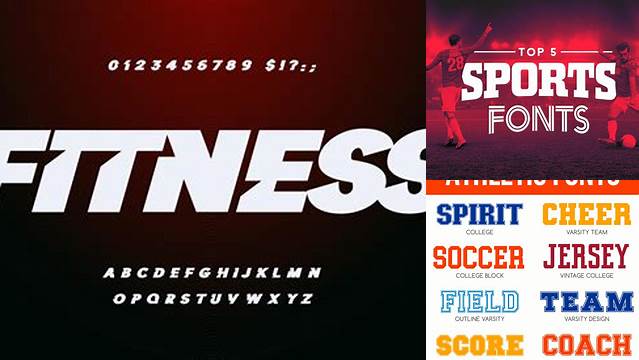
Top Fonts For Dynamic Sports Designs
Let's dive into the world of sports design, where choosing the right font can make all the difference. A great font can amplify the energy, passion, and spirit of the game, connecting with fans and athletes alike. But with so many options, how do you pick the perfect one? Don't worry, guys! This guide will walk you through the top fonts for sports designs, covering everything from athletic logos to dynamic posters.
1. The Importance of Typography in Sports Branding
Typography is more than just picking pretty letters; it's a crucial element in building a strong and recognizable sports brand. Think about iconic sports brands like Nike or Adidas. Their logos and associated fonts are instantly recognizable and evoke specific feelings. The right typography helps convey the team's personality, history, and values. It's about creating a visual language that resonates with fans and sets the team apart from the competition. When creating sports branding, remember to think about what sets this brand apart.
Think of your font as the voice of your brand. A bold, strong font can represent power and dominance, while a sleek, modern font might convey agility and innovation. The font choice must align with the overall brand identity, ensuring consistency across all platforms, from jerseys and merchandise to websites and social media. Typography also impacts readability, especially on fast-moving visuals like game-day graphics. So, choosing a font that is both stylish and legible is essential for effective communication and brand recognition.
2. Best Sans-Serif Fonts for Sports Logos
When it comes to sports logos, sans-serif fonts are often the go-to choice. Why? Because they offer a clean, modern, and versatile look that works well in various applications. One popular option is Bebas Neue, known for its tall, condensed letters that exude strength and power. Its clean lines and geometric shapes make it highly legible and impactful, perfect for conveying a sense of authority. Another excellent choice is Montserrat, a versatile font with a contemporary feel. Its clean, balanced letterforms make it highly readable, and it comes in various weights, offering flexibility in design. You can make your logo or the font itself stand out!
Consider Roboto, a widely used sans-serif font that strikes a balance between modern and classic design. Its open forms and friendly appearance make it approachable and versatile, suitable for a wide range of sports-related applications. For a more futuristic and tech-inspired look, Raleway is an excellent option. Its sleek lines and sharp angles give it a modern edge, perfect for teams or brands that want to convey innovation and speed. Sans-serif fonts provide a solid foundation for sports logos, offering a clean, versatile, and impactful look that can resonate with fans and athletes alike.
3. Top Serif Fonts for Sports Design
While serif fonts might not be as common as sans-serif fonts in sports logos, they can add a touch of classic elegance and sophistication to your designs. Playfair Display is a beautiful serif font with high contrast and delicate serifs, making it perfect for adding a touch of luxury to sports-related designs. It's great for creating a sense of tradition and heritage. Another excellent choice is Lora, a well-balanced serif font with a contemporary feel. Its slightly rounded terminals and elegant curves make it highly readable and approachable, perfect for conveying a sense of warmth and friendliness.
Merriweather is a robust serif font designed for on-screen reading, making it a great option for sports websites and digital publications. Its tall x-height and sturdy serifs ensure excellent legibility, even at small sizes. For a more classic and timeless look, consider Georgia. Its clean, well-defined letterforms make it highly readable and versatile, suitable for a wide range of sports-related applications. Although less common, serif fonts can bring a unique and sophisticated touch to sports designs, adding depth, character, and a sense of tradition.
4. Best Script Fonts for Sports-Themed Graphics
Script fonts can add a touch of personality and flair to your sports-themed graphics. But, it's important to use them sparingly and strategically. Brush Script MT is a classic brush script font that exudes energy and excitement. Its bold, dynamic strokes make it perfect for conveying a sense of movement and speed. Pacifico is a fun and friendly script font that adds a touch of playfulness to sports designs. Its rounded letterforms and casual style make it approachable and inviting, perfect for connecting with younger audiences.
Consider Lobster, a bold and eye-catching script font that demands attention. Its distinctive letterforms and vintage-inspired style make it perfect for creating a retro or nostalgic feel. For a more elegant and refined look, Great Vibes is an excellent choice. Its graceful curves and delicate strokes add a touch of sophistication to sports-related designs. While script fonts should be used judiciously, they can be incredibly effective in adding personality, flair, and a touch of uniqueness to your sports-themed graphics.
5. Monospace Fonts in Sports Design
Monospace fonts, where each character occupies the same amount of horizontal space, aren't typically the first choice for sports designs. However, they can be used creatively to achieve a unique and technical look. Courier New is a classic monospace font that evokes a sense of retro technology and coding. It can be used to create a vintage or industrial feel in sports-related designs. Roboto Mono is a modern monospace font that combines the clean lines of Roboto with the uniformity of a monospace typeface. Its balanced letterforms and contemporary style make it versatile and readable, even in longer texts.
Source Code Pro is a popular monospace font designed for coding environments, but it can also be used in sports designs to convey a sense of precision and technical expertise. Its clear and legible letterforms make it suitable for displaying data and statistics. Consider Fira Mono, a monospace font designed for Mozilla Firefox. Its open forms and friendly appearance make it approachable and readable, even at small sizes. While monospace fonts may not be as widely used as other font styles, they can bring a unique and technical edge to sports designs, especially when used creatively and sparingly.
6. Retro Fonts for Vintage Sports Aesthetics
Retro fonts are perfect for capturing the nostalgia and charm of vintage sports aesthetics. These fonts often feature bold, chunky letterforms, unique serifs, and a distinct sense of character that evokes a bygone era. Cooper Black is a classic retro font known for its rounded, heavy letterforms and playful appearance. It's perfect for creating a fun and nostalgic feel, reminiscent of old-school sports advertisements and posters. ITC Bauhaus is another excellent choice, with its geometric shapes and Art Deco influences. Its clean lines and stylized letterforms add a touch of sophistication and elegance to vintage-inspired designs.
Rockwell is a sturdy slab-serif font that exudes strength and confidence. Its bold letterforms and square serifs make it ideal for creating impactful headlines and logos with a retro feel. Consider Brush Script, a dynamic and energetic script font that captures the spirit of mid-century advertising. Its flowing strokes and hand-drawn appearance add a touch of personality and authenticity to vintage sports designs. Retro fonts can effectively transport viewers back in time, adding character, charm, and a sense of history to your sports-related projects.
7. Futuristic Fonts for Modern Sports Brands
For modern sports brands aiming to convey innovation, speed, and cutting-edge technology, futuristic fonts are the way to go. These fonts often feature sleek lines, geometric shapes, and a sense of forward motion that reflects the dynamic nature of sports. Nexa Rust Sans Black is a bold and impactful font with a slightly distressed texture, giving it a modern and edgy feel. Its strong letterforms and contemporary style make it perfect for creating attention-grabbing headlines and logos. Orbitron is another excellent choice, with its clean, geometric shapes and futuristic appearance. Its rounded terminals and balanced letterforms make it highly readable and versatile.
Consider Exo, a sleek and modern sans-serif font with a slightly condensed form. Its dynamic letterforms and futuristic aesthetic make it ideal for conveying speed and innovation. For a more minimalist and understated look, Rajdhani is a great option. Its clean lines and simple shapes give it a modern and sophisticated feel, perfect for conveying a sense of elegance and precision. Futuristic fonts can effectively communicate a brand's commitment to innovation and technology, helping to create a modern and dynamic image for sports teams and organizations.
8. Best Fonts for Sports Jerseys
Choosing the right font for sports jerseys is crucial for both aesthetics and legibility. The font must be easily readable from a distance, durable enough to withstand wear and tear, and consistent with the team's brand identity. Block fonts are a popular choice for jerseys due to their clean lines and excellent legibility. Arial Black is a classic block font that is widely used in sports apparel. Its bold letterforms and simple design make it highly readable and versatile. Impact is another excellent option, with its condensed form and strong presence. Its bold letterforms and narrow width make it ideal for fitting longer names and numbers on jerseys.
Consider Eurostile, a geometric sans-serif font that exudes a sense of speed and technology. Its clean lines and modern appearance make it perfect for conveying a contemporary look. For a more traditional and athletic feel, Collegiate is a great choice. Its bold letterforms and classic design evoke the spirit of college sports. When selecting fonts for sports jerseys, prioritize legibility, durability, and consistency with the team's brand. This will ensure that the jerseys look great and are easy to read on the field.
9. Fonts for Sports Posters
Sports posters need fonts that grab attention and convey the excitement of the game. Bold, dynamic fonts are often the best choice for creating impactful designs. Bangers is a high-energy comic-style font that is perfect for creating a sense of action and excitement. Its bold letterforms and playful design make it ideal for posters targeting younger audiences. Komika Axis is another great option, with its clean lines and geometric shapes. Its modern appearance and strong presence make it suitable for conveying a sense of power and dynamism.
Consider League Gothic, a condensed sans-serif font that is perfect for headlines and titles. Its tall, narrow letterforms allow you to fit more text on the poster without sacrificing legibility. For a more vintage-inspired look, Bebas Neue is an excellent choice. Its clean lines and tall letterforms give it a classic and timeless feel. When designing sports posters, choose fonts that are bold, dynamic, and eye-catching. This will help you create designs that capture the attention of viewers and convey the excitement of the game.
10. Fonts for Sports Websites
Sports websites require fonts that are both readable and visually appealing. The font should be easy on the eyes, even when reading longer articles or browsing through numerous pages. Open Sans is a popular choice for websites due to its clean lines and excellent legibility. Its open letterforms and neutral design make it highly readable on screens of all sizes. Lato is another great option, with its rounded letterforms and friendly appearance. Its warm and inviting design makes it perfect for creating a welcoming and approachable website.
Consider Roboto, a versatile sans-serif font that strikes a balance between modern and classic design. Its open forms and friendly appearance make it approachable and versatile, suitable for a wide range of sports-related applications. For a more minimalist and understated look, Montserrat is a great option. Its clean lines and balanced letterforms make it highly readable and versatile. When choosing fonts for sports websites, prioritize legibility, readability, and a design that complements the overall website aesthetics. This will ensure that your website is both user-friendly and visually appealing.
11. Pairing Fonts for Sports Design
Pairing fonts effectively is crucial for creating visually harmonious and engaging sports designs. A well-chosen font pairing can enhance readability, highlight important information, and create a cohesive visual identity. One popular pairing is Bebas Neue for headlines with Open Sans for body text. Bebas Neue's tall, bold letterforms make it perfect for grabbing attention, while Open Sans's clean and legible design ensures readability in longer passages. Another effective pairing is Montserrat for headlines with Roboto for body text. Montserrat's modern and balanced letterforms complement Roboto's versatile and approachable design.
Consider pairing a bold display font like Impact with a simpler sans-serif font like Arial for a high-contrast and impactful look. You can also pair a script font like Pacifico with a clean sans-serif font like Lato to add a touch of personality and playfulness to your designs. When pairing fonts, make sure to choose fonts that complement each other in terms of style, weight, and personality. Avoid pairing fonts that are too similar, as this can create a monotonous and uninteresting design. Experiment with different pairings to find the perfect combination that aligns with your design goals.
12. Free Fonts for Sports Design
Finding free fonts for sports design can be a great way to save money without sacrificing quality. Many excellent free fonts are available that can be used for a variety of sports-related projects. Bebas Neue is a popular free sans-serif font that is perfect for headlines and logos. Its tall, condensed letterforms and clean design make it a versatile choice for various applications. Open Sans is another excellent free font that is widely used for body text and website content. Its clean lines and excellent legibility make it highly readable on screens of all sizes.
Consider Roboto, a versatile sans-serif font that is available in a variety of weights and styles. Its open forms and friendly appearance make it approachable and versatile, suitable for a wide range of sports-related applications. For a more modern and geometric look, Montserrat is a great free option. Its clean lines and balanced letterforms make it highly readable and versatile. When using free fonts, make sure to check the license terms to ensure that you are allowed to use them for your intended purpose. Many free fonts are available for personal and commercial use, but some may have restrictions on distribution or modification.
13. Premium Fonts for Sports Branding
Investing in premium fonts can elevate your sports branding and give your designs a professional edge. Premium fonts often offer higher quality, more unique designs, and better support than free fonts. Knockout is a popular premium font family that is widely used in sports branding. Its bold, impactful letterforms and versatile design make it perfect for creating attention-grabbing headlines and logos. Trade Gothic is another excellent premium option, with its clean lines and timeless appeal. Its versatile design and excellent legibility make it suitable for a wide range of applications.
Consider DIN Next, a modern and geometric sans-serif font that is widely used in corporate branding. Its clean lines and precise forms make it perfect for conveying a sense of professionalism and sophistication. For a more athletic and dynamic look, ITC Franklin Gothic is a great premium choice. Its bold letterforms and condensed form make it ideal for creating impactful designs with a sense of speed and energy. When investing in premium fonts, make sure to choose fonts that align with your brand identity and design goals. A well-chosen premium font can significantly enhance the overall look and feel of your sports branding.
14. Bold Fonts for Sports Headlines
Bold fonts are essential for creating impactful and attention-grabbing sports headlines. A bold font can effectively convey the energy, excitement, and importance of the news. Impact is a classic bold font that is widely used for headlines due to its strong presence and excellent legibility. Its condensed form and heavy weight make it ideal for creating impactful headlines that stand out. Bebas Neue is another great option for bold headlines, with its tall, condensed letterforms and clean design. Its versatile style and modern appearance make it suitable for a variety of sports-related applications.
Consider Nexa Rust Sans Black, a bold and impactful font with a slightly distressed texture, giving it a modern and edgy feel. Its strong letterforms and contemporary style make it perfect for creating attention-grabbing headlines and logos. For a more traditional and athletic feel, College is a great bold choice. Its bold letterforms and classic design evoke the spirit of college sports. When choosing bold fonts for sports headlines, prioritize legibility, impact, and a design that complements the overall visual identity.
15. Italics in Sports Typography
Italics can be a valuable tool in sports typography for adding emphasis, creating visual interest, and conveying a sense of speed or movement. When used sparingly and strategically, italics can enhance the overall design and highlight important information. One common use of italics is to emphasize key words or phrases within a sentence. This can help to draw the reader's attention to the most important information and make the text more engaging. Italics can also be used to indicate quotes or citations, distinguishing them from the main body of text.
In sports design, italics can be used to convey a sense of speed, agility, or dynamism. For example, italicizing the name of a player or team can suggest that they are moving quickly or performing with great energy. It's important to use italics sparingly to avoid overwhelming the reader or diluting their impact. Overuse of italics can make the text difficult to read and detract from the overall design. When using italics, choose a typeface that has a well-designed italic version that complements the regular style. This will ensure that the italics look natural and harmonious within the overall design.
16. Condensed Fonts for Sports Team Names
Condensed fonts are particularly useful when designing for sports teams with long names. They allow you to fit more text into a limited space without sacrificing legibility. These fonts are designed to be narrower than standard fonts, making them ideal for jerseys, logos, and other applications where space is at a premium. Bebas Neue is a popular condensed font often used for sports team names. Its tall, clean lines make it easily readable even when condensed.
Oswald is another excellent choice, offering a modern and clean aesthetic that works well in various sports contexts. Additionally, Roboto Condensed provides a versatile option that balances readability with a space-saving design. When selecting a condensed font, ensure it maintains clarity and aligns with the overall branding. This will create a professional and cohesive look that represents the team effectively.
17. Wide Fonts for Sports Design
While condensed fonts help save space, wide fonts can create a powerful visual impact in sports design. These fonts expand the letters, making them appear larger and more prominent. They can be used effectively in headlines, logos, and other areas where you want to grab attention. One popular wide font is Anton, which has a bold and impactful presence.
Bangers is another great choice for a more playful and dynamic feel, perfect for youth-oriented sports or events. Luckiest Guy provides a unique, hand-drawn look that adds character and personality. When using wide fonts, it’s important to balance their boldness with adequate spacing to avoid overwhelming the design. Careful application can result in striking visuals that enhance the overall message and branding.
18. Geometric Fonts in Sports Graphics
Geometric fonts are characterized by their clean, precise shapes and modern aesthetic. They offer a sense of order and efficiency, making them suitable for conveying a professional and streamlined image in sports graphics. These fonts often feature simple lines and circular or rectangular forms, contributing to a contemporary and technical look. Montserrat is a well-known geometric font that provides excellent readability and versatility.
Futura is another classic choice, offering a timeless and elegant design. Raleway combines geometric elements with a touch of sophistication, making it a great option for various applications. When using geometric fonts, ensure they align with the overall brand identity and enhance the clarity of the message. They can create a strong, modern visual that resonates with audiences.
19. Hand-Drawn Fonts for Sports Events
For a more personal and authentic touch, hand-drawn fonts can be an excellent choice for promoting sports events. These fonts bring a sense of warmth and informality, making the design feel more approachable and engaging. They can be particularly effective for local events, community sports, or campaigns that aim to connect with audiences on a more intimate level. Permanent Marker offers a bold and energetic look, perfect for creating a sense of excitement.
Amatic SC provides a condensed, hand-drawn feel that works well for headlines and titles. Coming Soon is another great option, offering a clean and legible hand-drawn style that is easy to read. When using hand-drawn fonts, balance their informality with clear messaging to ensure the design remains professional and effective. They can add a unique and memorable touch that helps the event stand out.
20. Layered Fonts for Sports Designs
Layered fonts offer a unique way to add depth and visual interest to sports designs. These fonts consist of multiple layers that can be stacked on top of each other to create a variety of effects, such as shadows, outlines, or color variations. This technique can make text stand out and add a three-dimensional feel to the design. ** পরাক্রমশালী Layer** is a good example of a layered font that allows you to create stunning effects. You can choose different colors for each layer, customize the shadow, and experiment with numerous combinations.
ব্রাশ Stroke Layered Font is another excellent option for any design or artwork. With multiple styles and layers, you can create various typography compositions with a vintage, retro, or modern style. Layered fonts can be particularly effective for logos, posters, and other visual elements where you want to make a strong impact. They require careful planning and execution but can yield impressive results that enhance the overall design.
21. Distressed Fonts for Gritty Sports Themes
When aiming for a raw and edgy aesthetic, distressed fonts are invaluable for sports themes. Their weathered appearance adds character and conveys a sense of resilience and determination. These fonts often feature textures that mimic wear and tear, making them ideal for designs that need a vintage or battle-worn feel. Urban Decay is a strong choice for creating a rugged, street-style vibe.
Grunge Font is another perfect alternative that is inspired by ripped paper and worn and aged textures. Another font that is unique is Angilla Tattoo Font. The fonts mentioned create a distressed effect to apply for logos, headlines, and graphic texts. You can create a rugged or worn appearance that matches the intended sports theme. By selecting the right distressed font, you can create a visual narrative that resonates with athletes and fans alike.
22. Fonts with Character: Unique Sports Typefaces
To stand out in the competitive world of sports branding, using fonts with character is essential. These unique typefaces offer distinct personalities that can set a team or brand apart. Playfair Display adds a touch of elegance and sophistication.
Bangers brings a comic-inspired energy. Luckiest Guy adds a playful, hand-drawn element. Archivo Black exudes boldness and power. Oswald strikes a balance between modern and classic. By selecting fonts that reflect a team’s unique identity, designers can create memorable and impactful branding.
23. Calligraphic Fonts in Sports Design
Calligraphic fonts can bring an element of sophistication and artistry to sports design, although they require careful application to avoid appearing out of place. These fonts emulate handwriting and can add a touch of elegance or personalization to a design. When used sparingly, calligraphic fonts can highlight specific elements or create a unique contrast with more conventional typefaces. Great Vibes is a beautiful script font.
Pacifico offers a more casual and friendly vibe. Brush Script MT is a classic choice with a dynamic feel. The fonts mentioned are excellent for logo and headline text. It is important to use calligraphic fonts in moderation and pair them with more legible fonts for body text. By balancing style with readability, designers can add a sophisticated and artistic touch to their sports-related projects.
24. Fonts for Extreme Sports Marketing
Extreme sports marketing demands fonts that convey energy, excitement, and a sense of adventure. Bold, dynamic typefaces are essential for capturing the spirit of these high-octane activities. Bangers is an excellent choice for this need.
Impact delivers a powerful, attention-grabbing message. Another excellent font option is Nexa Rust. The fonts mentioned make them well-suited for logos, posters, and advertisements. It is important to ensure the fonts align with the overall brand identity and appeal to the target demographic. By selecting the right typefaces, marketing materials can effectively communicate the thrill and intensity of extreme sports.
25. The Psychology of Fonts in Sports Branding
Understanding the psychology of fonts is crucial in sports branding, as different typefaces evoke different emotions and associations. A bold, sans-serif font like Impact can convey strength and power, while a sleek, modern font like Futura might suggest innovation and speed. For instance, using curved or rounded fonts could make a brand feel friendly and approachable. In contrast, sharp and angular fonts can convey energy and excitement.
Carefully select fonts that reflect the team or organization’s values and personality. Align the fonts with the target audience’s preferences. By understanding these psychological aspects, designers can create more effective and impactful branding materials for sports teams.
26. Font Licensing for Sports Designs
Font licensing is a critical aspect of sports design that ensures legal compliance and protects intellectual property rights. Designers must ensure that they have the appropriate licenses for all fonts used in commercial projects, including logos, jerseys, and marketing materials. There are different types of font licenses, such as desktop licenses, web licenses, and embedding licenses, each with its own terms and conditions.
It’s essential to read and understand the license agreement before using a font to avoid potential copyright infringement. Keep records of all font licenses and regularly update them as needed. When collaborating with other designers or clients, clearly communicate the font licensing requirements and responsibilities. By adhering to font licensing regulations, designers can ensure that their sports designs are legally compliant and ethically sound.
27. Fonts that Evoke Speed and Motion in Sports Design
In sports design, it’s essential to select fonts that evoke speed and motion, as these can effectively convey the dynamic nature of athletic activities. Typefaces that appear slanted or italicized can suggest movement, while those with sharp angles or streamlined shapes can imply speed and agility. Exo is a futuristic font.
Arial Italic is an option that evokes speed and motion. These fonts, when used effectively, can enhance the visual impact of sports-related designs. It will draw attention to the team and highlight their speed. For those that are fans of the race, the fonts should show speed and motion to show the power of the driver.
28. Combining Fonts for a Visual Hierarchy in Sports Graphics
Combining fonts strategically is essential for creating a clear visual hierarchy in sports graphics. By using different typefaces for headlines, subheadings, and body text, designers can guide the viewer's eye and highlight important information. For example, a bold, attention-grabbing font can be used for headlines to draw immediate attention, while a more readable and understated font can be used for body text to ensure legibility. Contrasting font sizes, weights, and styles can further enhance the visual hierarchy and create a more engaging design.
Selecting fonts that complement each other in terms of style and personality is key. When combining the fonts to create an engaging design, make sure it flows and does not look out of place. Don't be scared to experiment with different font combinations to achieve the desired effect and ensure that the overall design is both visually appealing and easy to navigate.
29. Using Color with Fonts in Sports Branding
Using color with fonts in sports branding can significantly impact the overall visual appeal and effectiveness of the design. Color evokes emotions and associations. Choose colors that align with the team’s personality and values. Bold and vibrant colors, such as red, blue, or yellow, can convey energy and excitement, while more subdued and neutral colors, such as gray or black, can convey professionalism and sophistication.
Use color strategically to highlight key elements, such as the team name or logo. Ensure that there is sufficient contrast between the font color and the background color to maintain legibility and readability. Experiment with different color combinations to find the perfect palette that reflects the brand’s identity and resonates with the target audience. By carefully considering the psychology and symbolism of color, designers can create more impactful and memorable sports branding materials.
30. Accessibility Considerations for Fonts in Sports Design
Accessibility considerations are paramount when selecting fonts for sports design to ensure that the content is inclusive and readable for all individuals. Choosing fonts that are easy to read for people with visual impairments, such as those with low vision or dyslexia, is essential. Opt for fonts with clear and simple letterforms, wide spacing, and adequate contrast between the text and background. Avoid using overly decorative or stylized fonts that can be difficult to decipher.
Provide alternative text descriptions for images and graphics that contain text. This allows screen readers to convey the information to visually impaired users. Adhering to accessibility guidelines ensures that sports designs are inclusive and accessible to everyone, regardless of their abilities. As a review, make sure the fonts can be readable to those that need some visual assistance or have a visual impairment.